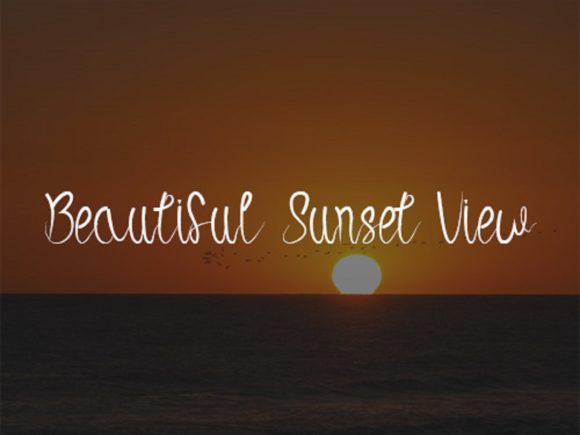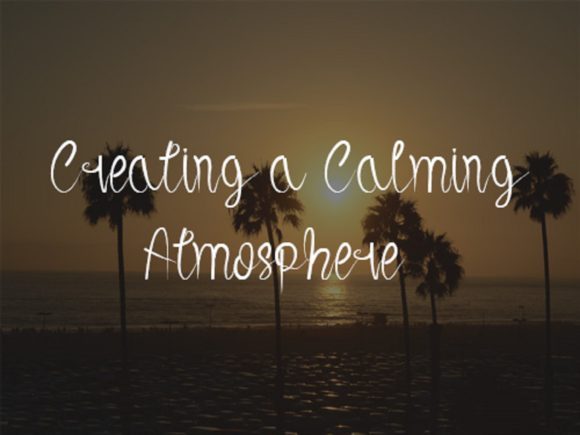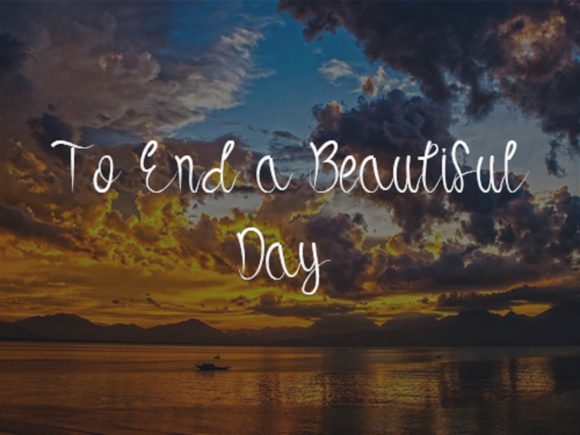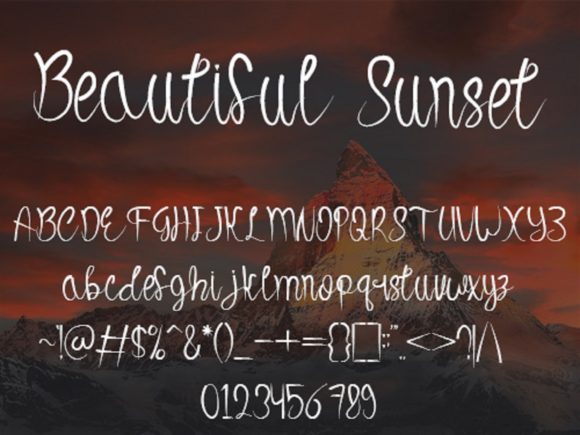
Introducing Beautiful Sunset Font: Elevate Your Designs with Elegance
Are you tired of using the same old fonts in your designs? Look no further! Beautiful Sunset Font is a stunning script font that adds a touch of elegance and sophistication to any project. Crafted with love and care, this font is perfect for designers and crafters who want to give their work a fresh and refreshing look.
The Beauty of Beautiful Sunset Font
Beautiful Sunset Font is a lovely and delicate script font that exudes elegance and class. Its unique and flowing design makes it perfect for a variety of projects, from wedding invitations and branding materials to social media graphics and blog posts. The font’s gentle curves and smooth lines create a soothing and calming effect, making it ideal for designs that require a touch of sophistication.
What Makes Beautiful Sunset Font Special?
- Elegant and Refined Design: Beautiful Sunset Font boasts a beautiful and refined design that is sure to impress. Its elegant curves and lines make it perfect for designs that require a touch of luxury and sophistication.
- Highly Versatile: This font is highly versatile and can be used in a variety of projects, from print materials to digital designs.
- Easy to Read: Despite its elegant design, Beautiful Sunset Font is easy to read, making it perfect for body text and captions.
- Unique and Creative: Beautiful Sunset Font is a unique and creative font that will set your designs apart from the rest.
Beautiful Sunset Font is perfect for designers and crafters who want to add a touch of elegance and sophistication to their work. Whether you’re designing a logo, creating a social media graphic, or crafting a beautiful wedding invitation, this font is sure to impress. Its versatility and ease of use make it a great addition to any designer’s toolkit.
- Pair it with a Bold Font: Pair Beautiful Sunset Font with a bold font for a striking contrast that will make your designs pop.
- Use it for Headings and Titles: Use Beautiful Sunset Font for headings and titles to add a touch of elegance and sophistication to your designs.
- Experiment with Colors: Experiment with different colors to find the perfect match for your design. Beautiful Sunset Font looks great in a variety of colors, from soft pastels to bold brights.
| Font Name | Beautiful Sunset Font |
| Author | scriptstrategy |
Key Features of Beautiful Sunset Font
| Font Type | Script Font |
| Design Style | Elegant and Refined |
| Versatility | Highly Versatile |
| Readability | Easy to Read |